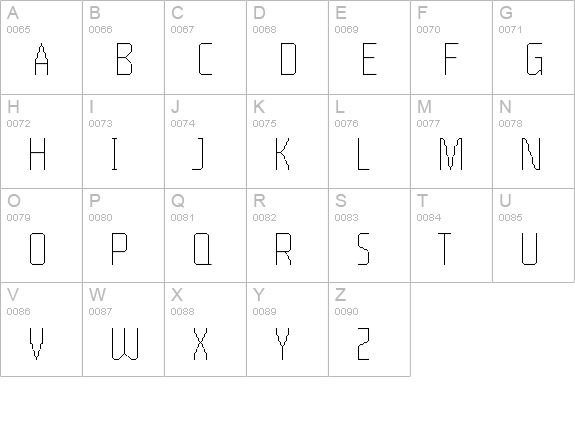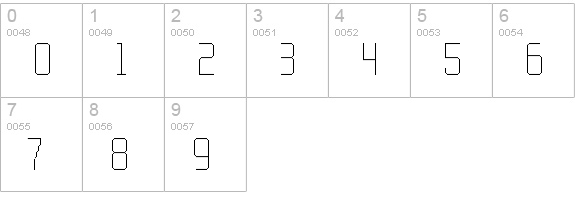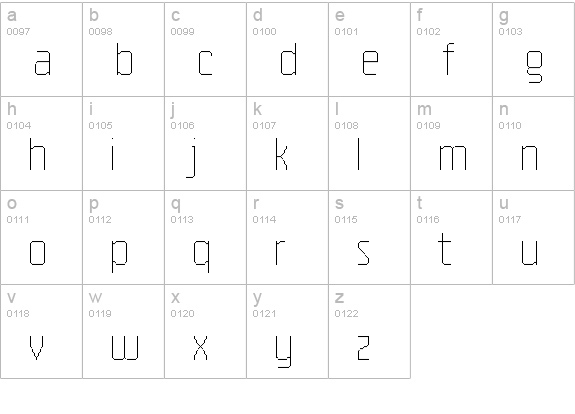
Pro55 Light Font Details
Pro55 Light is a refined, elegant variant in the Pro55 typeface family \xE2\x80\x94 well suited to elegant body text, refined sub-headings, and luxury branding.
Pro55 Light font is a modern and elegant typeface that exudes sophistication and style. With its clean lines and sleek appearance, this font is perfect for a wide range of design projects, from branding to editorial layouts. The Pro55 Light font offers a delicate and refined look that adds a touch of class to any design. The best part is that Pro55 Light font is available for free download at FontsMarket.com. Whether you're a graphic designer, web developer, or just someone who appreciates beautiful typography, you can easily access this stunning font without any cost. Don't miss out on the opportunity to enhance your projects with the Pro55 Light font - download it today and elevate your designs to the next level.